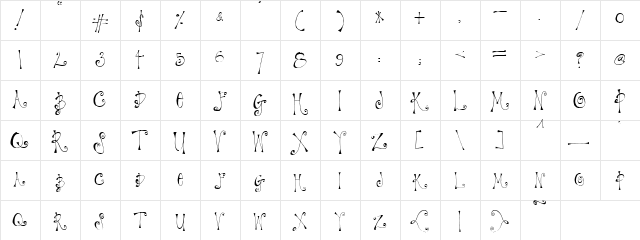
PC Sellers Swirls Regular
Design Context for PC Sellers Swirls Typeface
PC Sellers Swirls brings ornamental detail and strong personality to headlines and identities, where visual impact matters more than quiet functionality.
Font Pairing: Pair with a clean neutral sans-serif for body copy to let PC Sellers Swirls's character lead without overwhelming the composition.
Pro Tip: Treat PC Sellers Swirls as the centrepiece of your typographic hierarchy. One strong heading set in a decorative face can carry an entire layout.